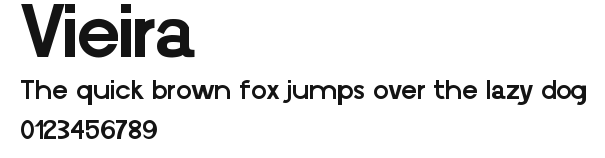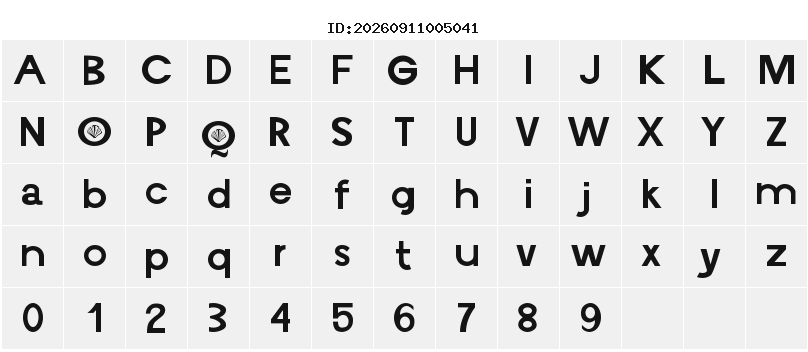
• Font Name: Vieira
• Full Font Name: Vieira Normal
• Designer: Matias Romero
About Vieira.ttf
Vieira.ttf is a modern, elegant sans-serif font designed for ultimate readability and visual harmony. Perfect for branding, headlines, web design, and print materials.